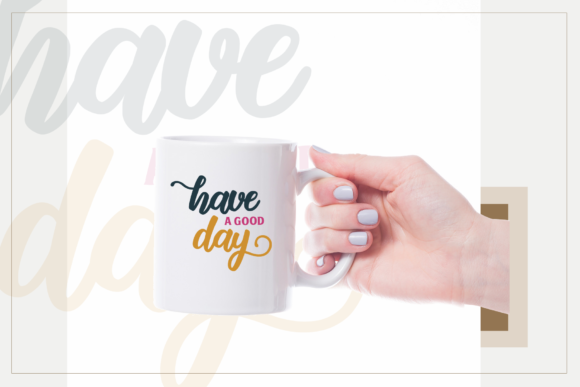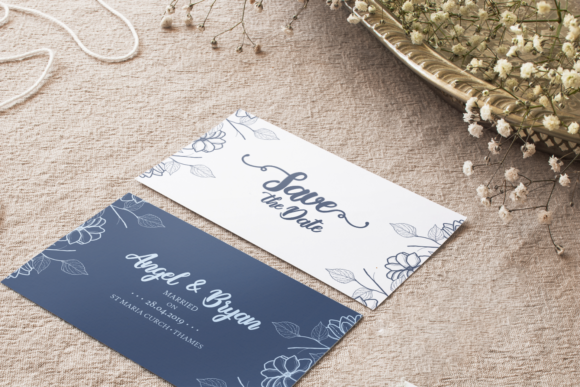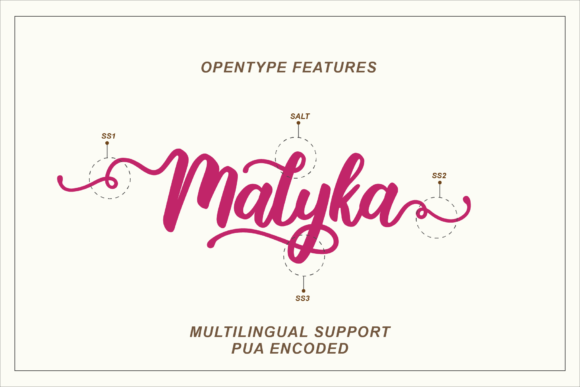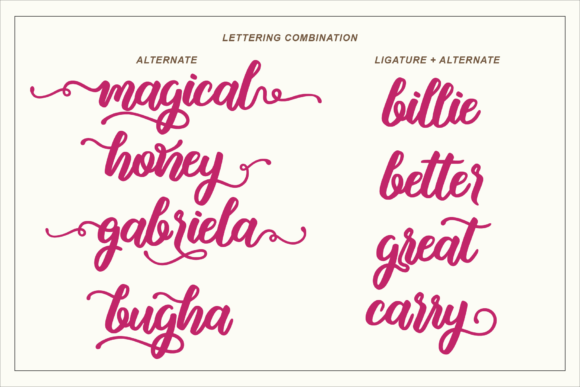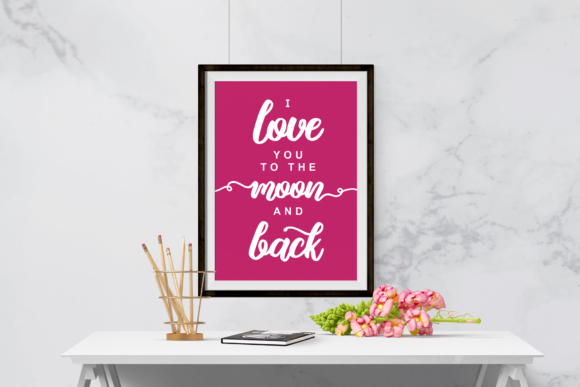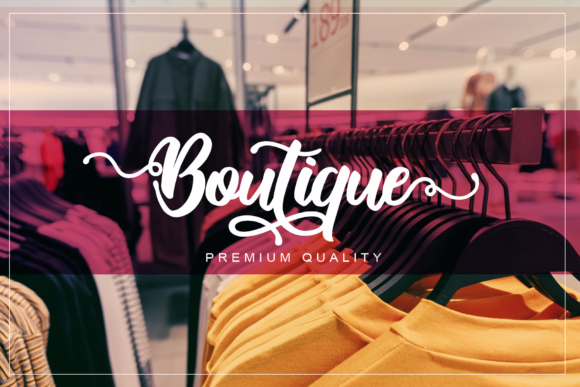
Introduction to Malyka Font
Have you ever been working on a creative project, pouring your heart and soul into it, and then suddenly, that perfect font comes along and takes it to the next level? For designers, finding the right font can be the difference between a good design and a great one.
Enter the Malyka Font, a sweet and simple script with beautiful swashes that will turn any design idea into a true standout. With its unique character and versatility, this free download is a valuable resource for any designer looking to add a touch of elegance and sophistication to their work.
Whether you’re working on a logo, a poster, or a website, the Malyka Font is sure to be a game-changer. Its transparent background and high-quality design make it perfect for any creative project, and its free availability means you can use it without breaking the bank.
Key Features of Malyka Font
- High-quality, unique design for creative projects, ideal for use as a design resource
- Available for free download, making it accessible to artists and designers worldwide
- Comes with a transparent background, allowing for seamless integration into various backgrounds
- Designed with a high level of detail and precision, ensuring a crisp and clear appearance at resolutions up to 300 DPI
- Perfect for use in graphic design, digital art, and other creative pursuits, thanks to its versatility and unique aesthetic
- Available in a range of sizes, from 14 to 72 points, making it suitable for a variety of design applications
Honest Review: Malyka Font
I recently stumbled upon the Malyka Font and I must say, it’s a game-changer for any design resource. This free download has been a lifesaver for my creative projects, especially when I need a high-quality font with a transparent background.
- Unique and elegant design: The Malyka Font has a distinctive style that sets it apart from other fonts. Its curvy lines and rounded edges make it perfect for adding a touch of sophistication to any design.
- Limited character set: While the font is perfect for headings and titles, it may not be suitable for large blocks of text due to its limited character set.
- No bold or italic versions: Unfortunately, the Malyka Font does not come with bold or italic versions, which may limit its use in certain design scenarios.
Overall, I’m thoroughly impressed with the Malyka Font. Its unique design and high-quality download make it a valuable addition to any design resource. While it may have some limitations, it’s definitely worth considering for your next creative project.
Tips for Getting the Most Out of Malyka Font
To get the most out of the Malyka Font, try combining it with other design elements like images and graphics. You can also experiment with different font sizes and colors to create a unique look. Additionally, make sure to use the font in a way that complements your creative project, rather than overpowering it.